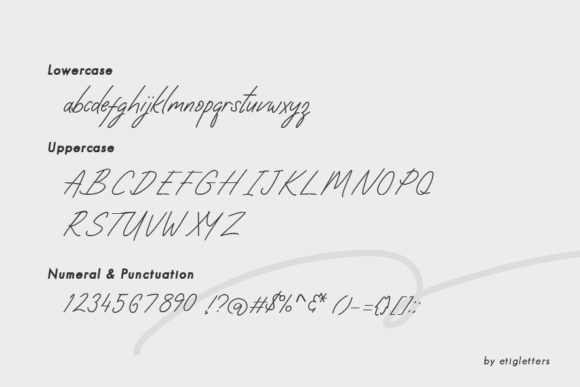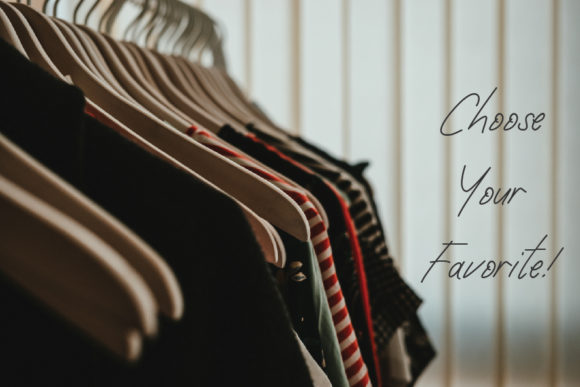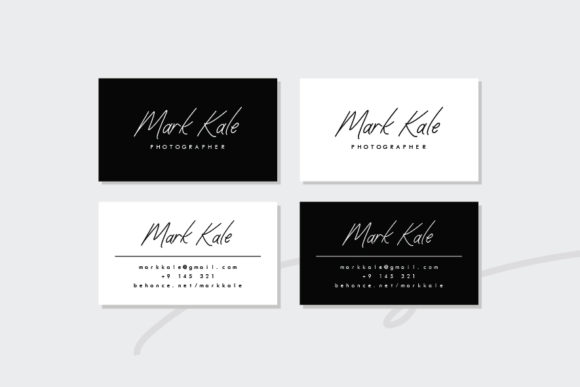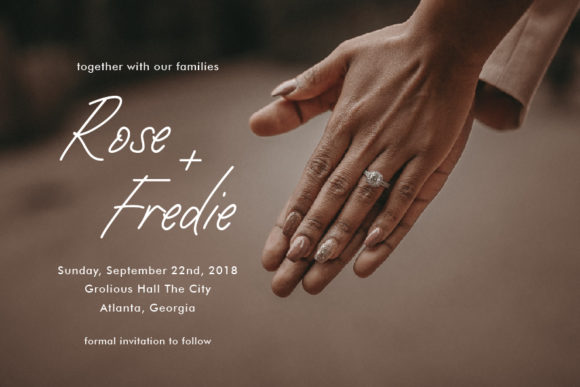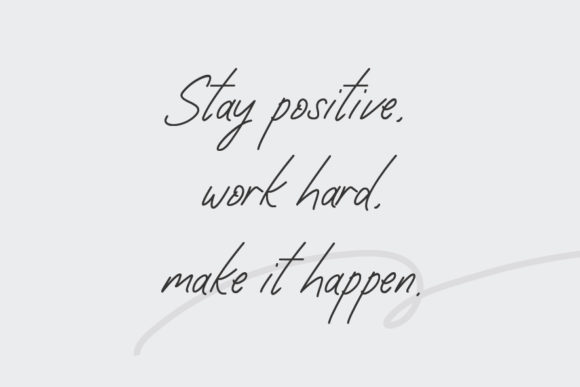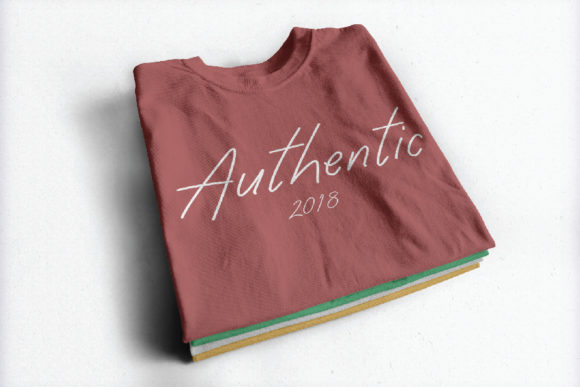
Introduction to Montty Cregdie Font Font
Fonts play a crucial role in design, and the Montty Cregdie Font font is a typeface that brings both character and versatility to any project. Whether you’re working on a branding project, a website, or a print design, the Montty Cregdie Font font offers a unique style that can elevate your work.
Montty Cregdie is a smooth and light handwritten font that will allow you to create incredibly authentic designs.
Key Features of Montty Cregdie Font Font
Why Choose Montty Cregdie Font Font?
The Montty Cregdie Font font is more than just a typeface – it’s a design tool that helps you communicate your message with style and clarity. Its unique character set and versatile design make it suitable for a wide range of applications, from elegant invitations to bold headlines.
With its carefully crafted letterforms and balanced proportions, the Montty Cregdie Font font ensures readability and visual appeal across all mediums.
What makes Montty Cregdie Font font special?
The Montty Cregdie Font font stands out with its unique design, exceptional readability, and versatility across various design applications.